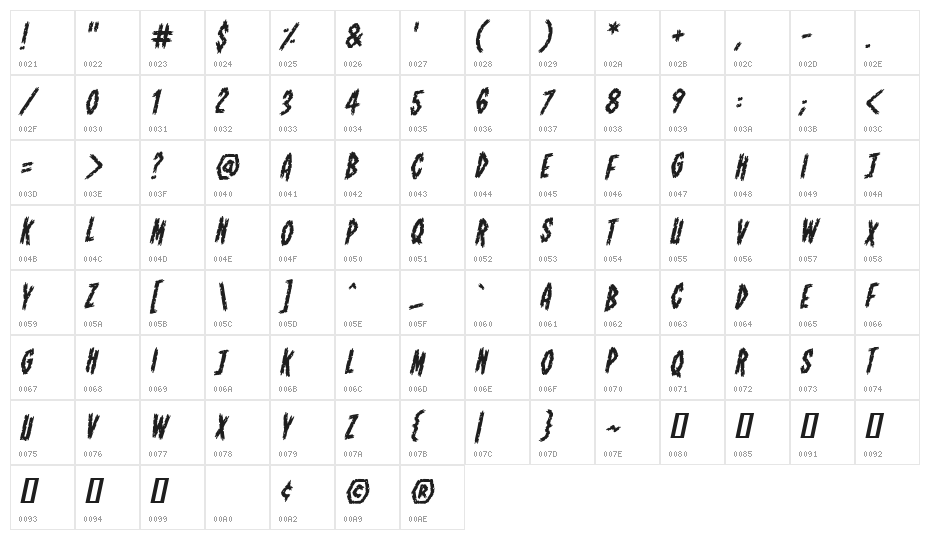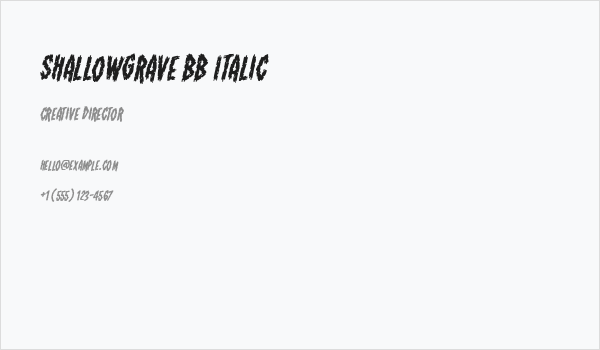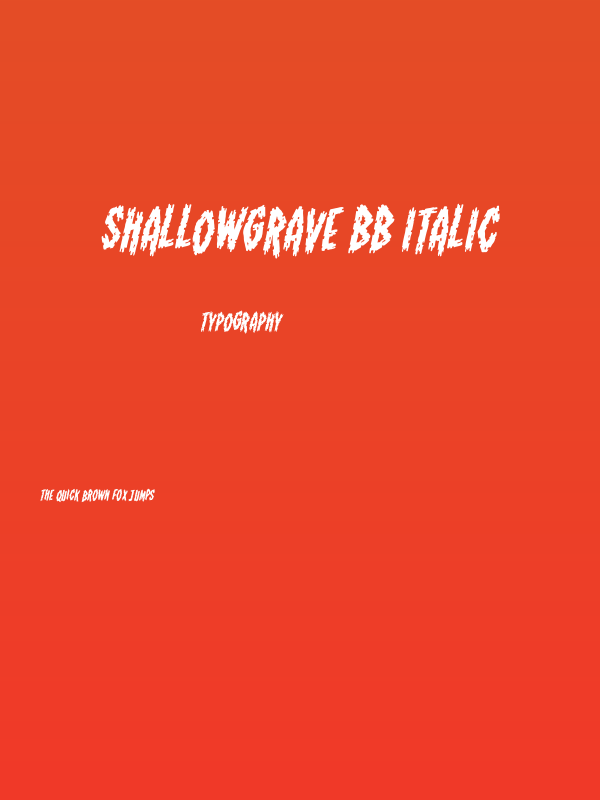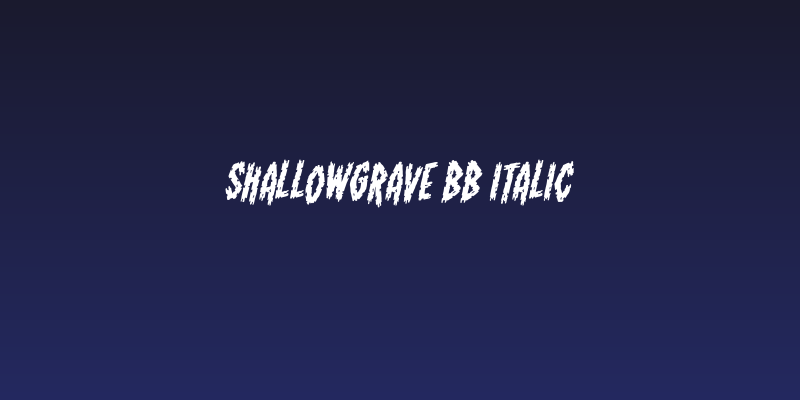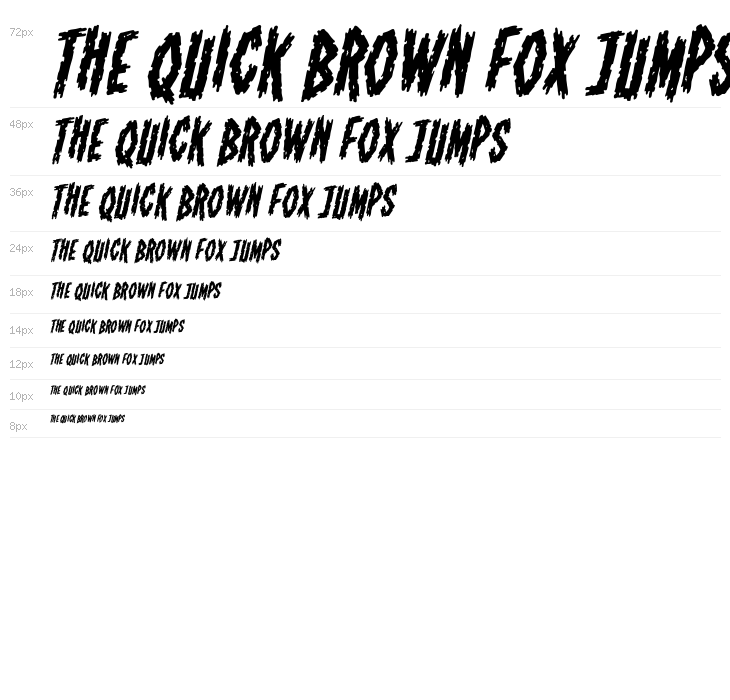
ShallowGrave BB Italic Font
ShallowGrave BB Italic Description
This font features a bold and jagged style, reminiscent of horror or thriller themes. The letters have a distressed, uneven texture that gives them a dynamic and edgy appearance. The strokes are thick and irregular, contributing to a sense of urgency and intensity. The italic slant adds to the dramatic effect, making the font suitable for attention-grabbing headlines or titles. The numerals and special characters maintain the same rugged aesthetic, ensuring consistency across all text elements.
| Proposed Projects | Ideal for horror movie posters, Halloween event flyers, or any project requiring a dramatic and edgy typeface. |